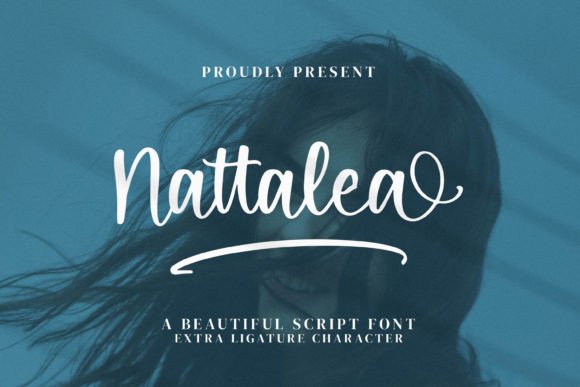
Prepare to be captivated by the Nattalea Font, a captivating script font family that exudes romance and elegance. This beautiful typeface, brought to life by the talented integritypestudio, is like a breath of fresh air, adding a touch of charm and sophistication to your creative projects.
With its dancing characters that gracefully flow along the baseline, Nattalea brings a sense of movement and fluidity to your designs. It's perfect for creating love letters that are sure to sweep hearts off their feet, adding a touch of heartfelt emotion to every word.
Step into a world of enchantment as you embrace the Nattalea Font. Its enchanting curves and delicate details will effortlessly elevate your designs, whether it's a heartfelt letter, an enchanting invitation, or even a captivating social media post. Unleash your creativity and watch as your words transform into works of art, leaving a lasting impression on anyone who encounters them.
Embrace the beauty of Nattalea and let your designs blossom with a timeless charm. This versatile font family is perfect for a variety of projects, allowing you to create designs that are as unique and captivating as your imagination. From wedding invitations that radiate elegance to branding materials that exude sophistication, Nattalea seamlessly adapts to your creative vision.
Indulge in the Nattalea Font experience and witness the transformation of your designs. Its enchanting allure will captivate audiences, leaving them spellbound by the sheer beauty of your creations. Embrace the power of Nattalea and let your designs speak volumes, conveying emotions and messages with an eloquence that will leave an unforgettable mark.